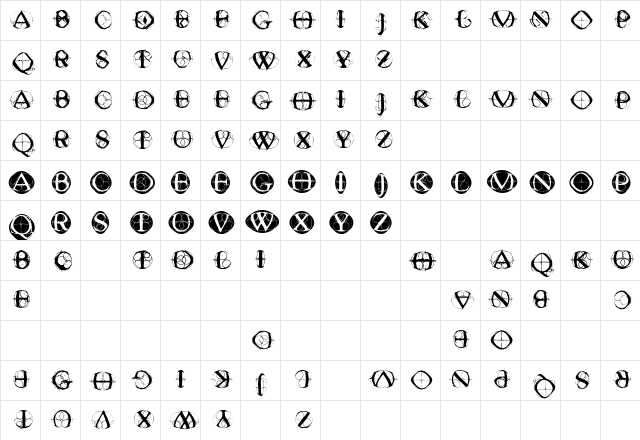
TypoGhosts Regular Font Preview
TypoGhosts Regular
Design Context for TypoGhosts Typeface
TypoGhosts is a composed and adaptable typeface that performs quietly and consistently across a wide range of design contexts.